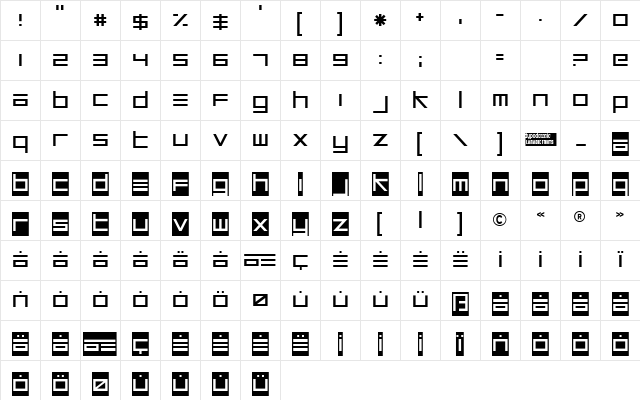
Unsteady Oversteer Regular Free Font
Unsteady Oversteer Regular
Complete Unsteady Oversteer Regular glyph index. Displaying only characters natively supported by Unsteady Oversteer Regular font.
Design Context for Unsteady Oversteer
Unsteady Oversteer is a composed and adaptable typeface that performs quietly and consistently across a wide range of design contexts.
Pro Tip: Use Unsteady Oversteer in both headline and body roles to test its range before committing to a single application.